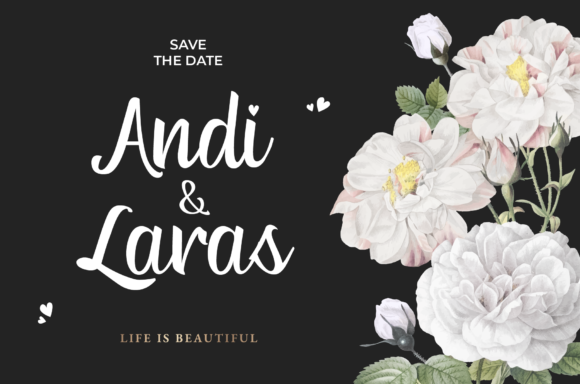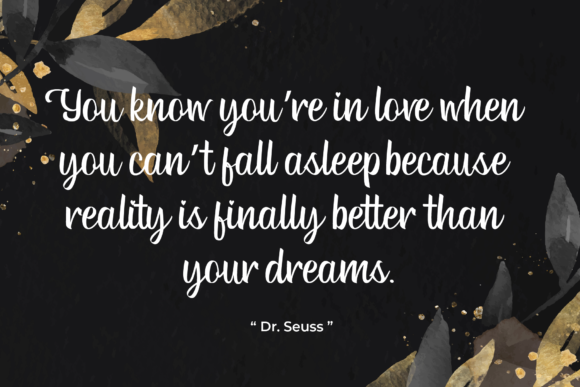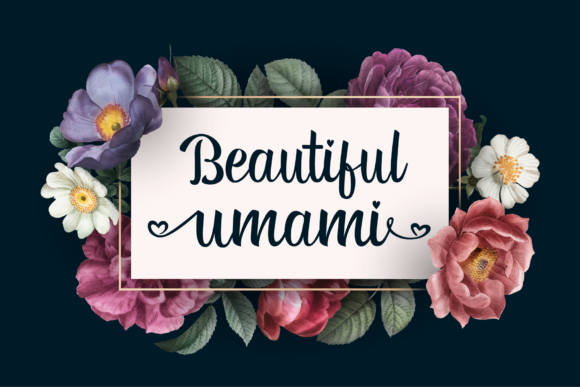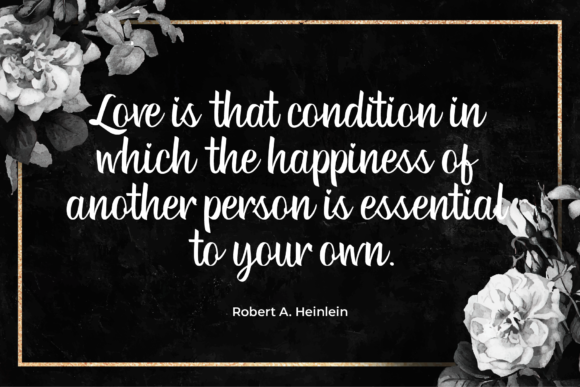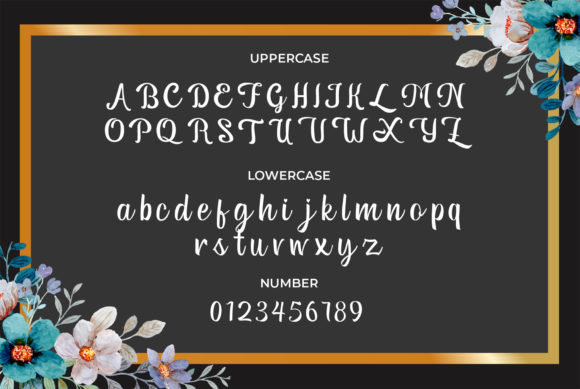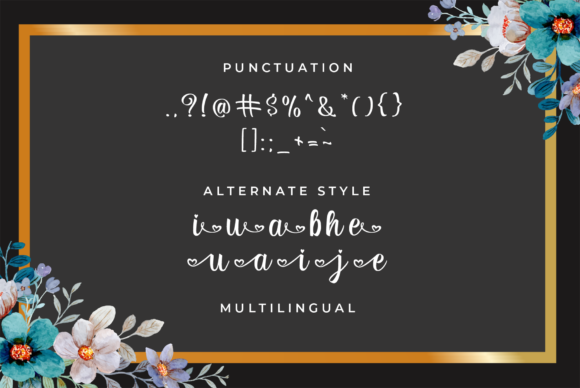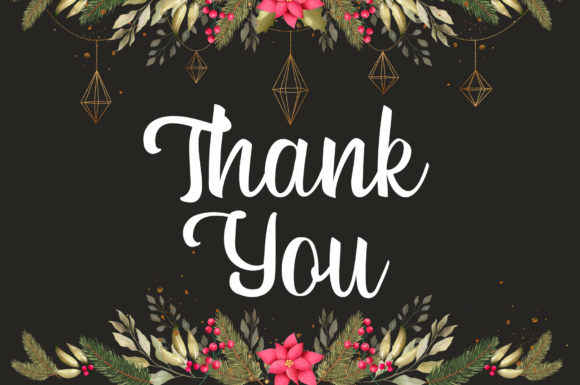
Juliette Font
About Juliette Font
Juliette is a sophisticated handwritten font with love authenticity and charm. It will elevate a wide range of crafting ideas, from cards, to branding, labels and much more.